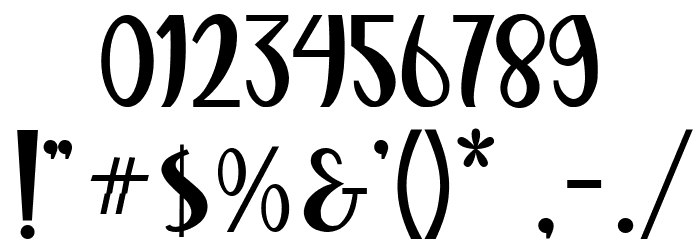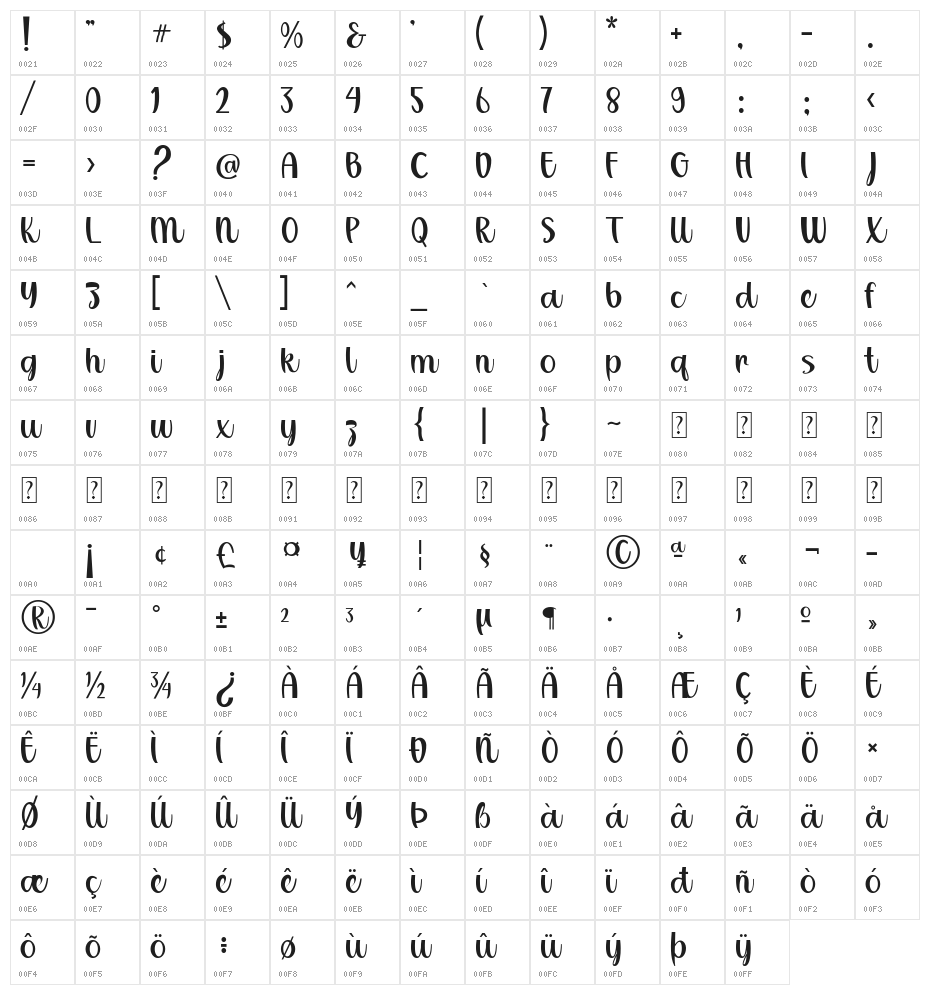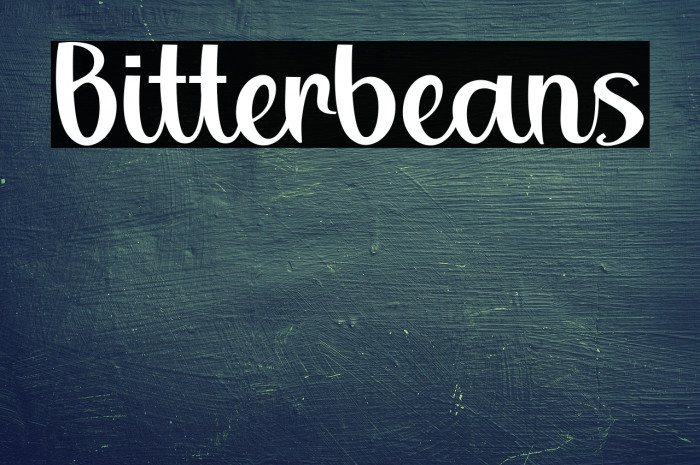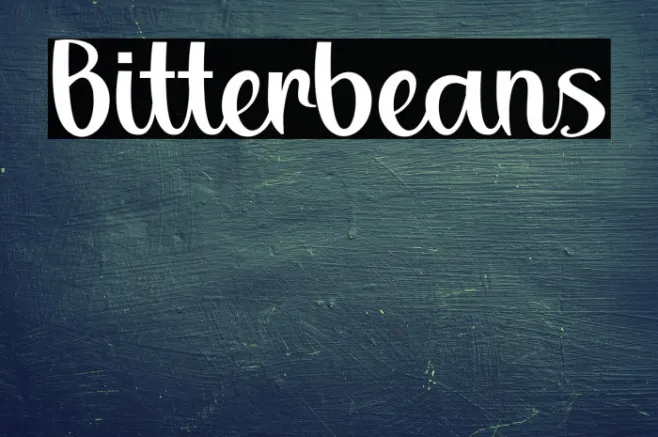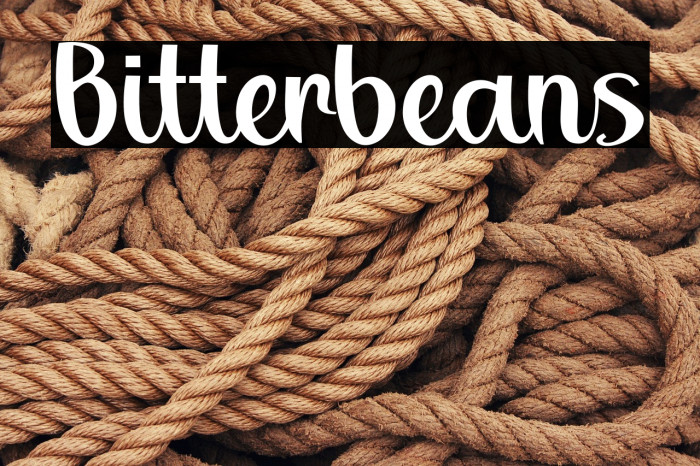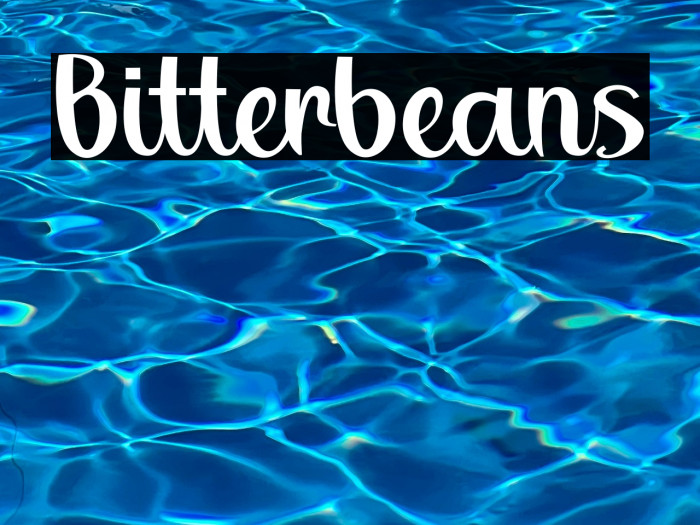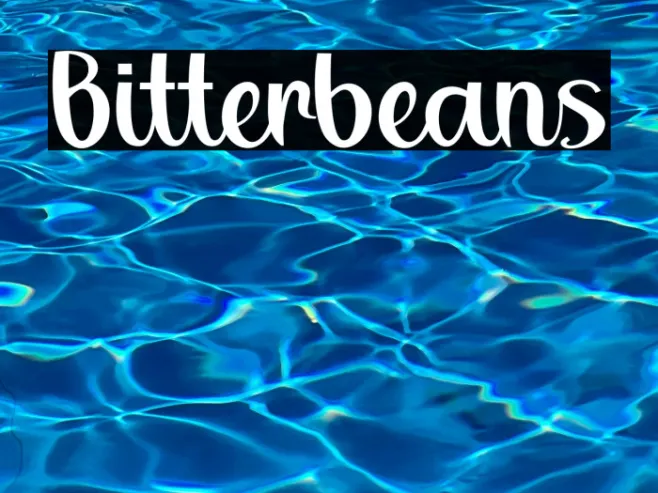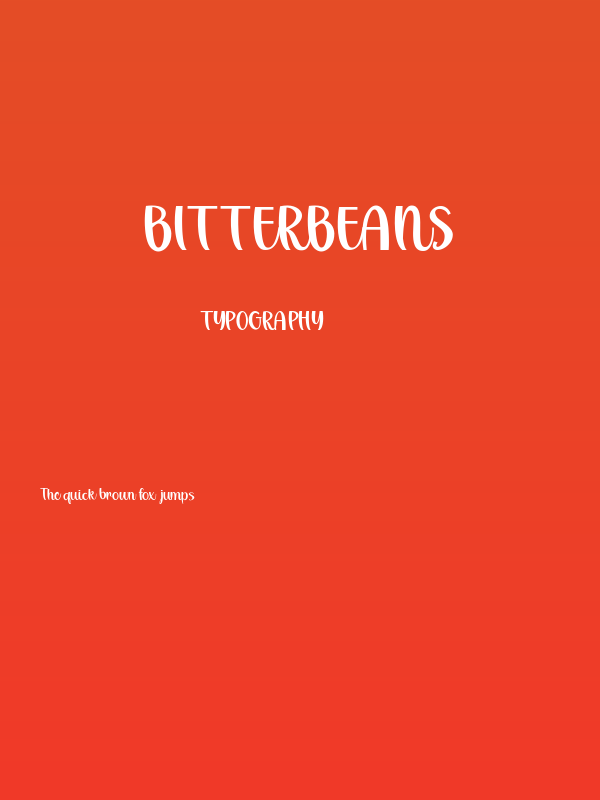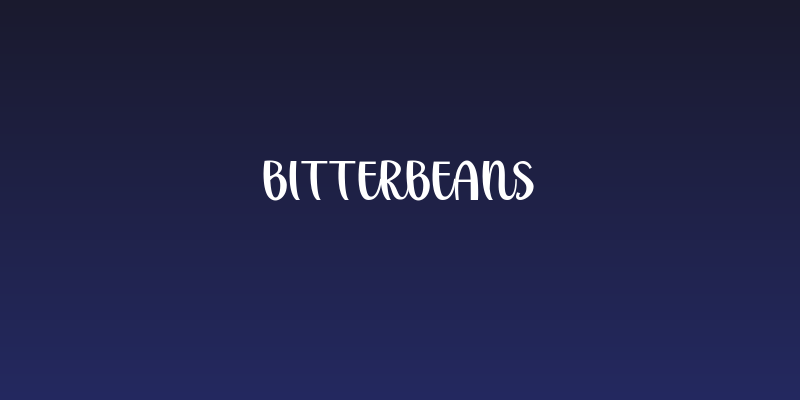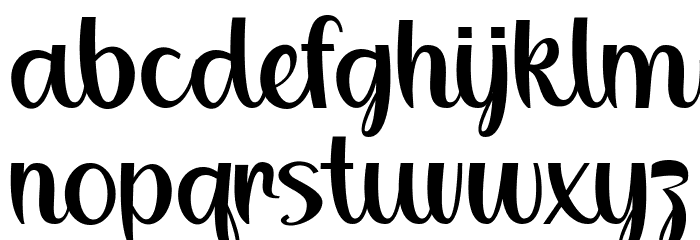
Bitterbeans Font
Bitterbeans Description
This font features a playful and whimsical style with a handwritten feel. The characters are bold and have a unique flair, with varying stroke widths that add a dynamic and lively appearance. The uppercase letters are tall and slightly condensed, while the lowercase letters maintain a consistent flow with a slight slant, giving the font an informal and friendly vibe. The numerals are distinct and easy to read, matching the overall playful aesthetic. Special characters are creatively designed, adding to the font's charm and versatility.